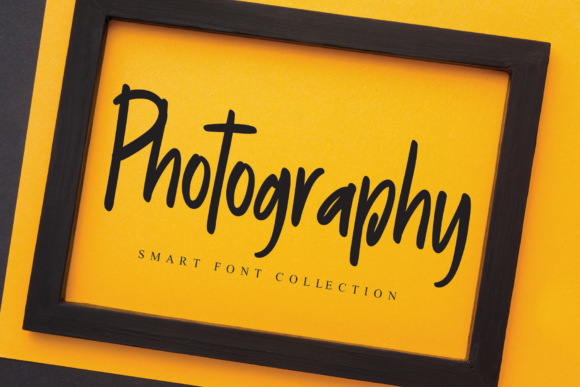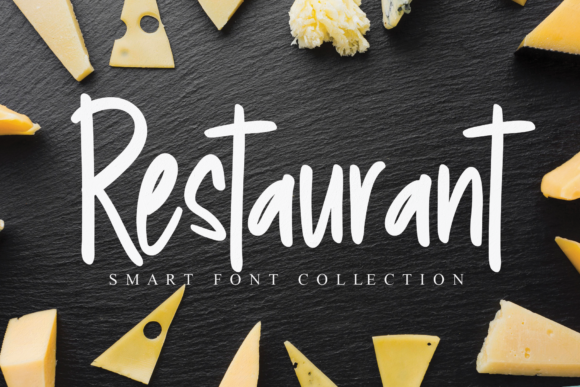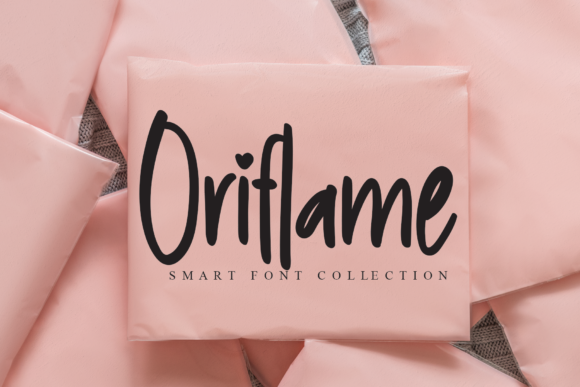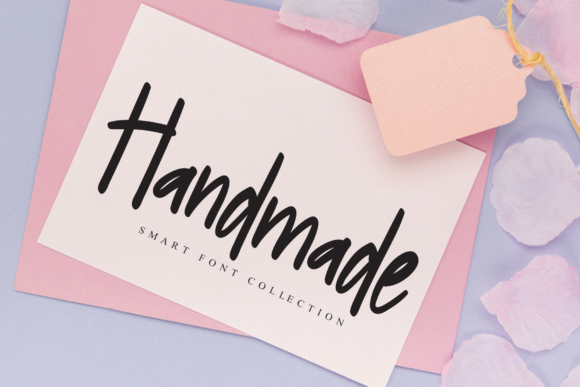
Start Your Day with a Delicious Font: Breakfast Font
As you sip your morning coffee and scroll through your design feeds, do you ever find yourself searching for the perfect font to kick-start your creative projects? I know I do! There’s something about the right font that can make all the difference in setting the tone for a beautiful design. For me, it’s the sweet and delicate swashes of Breakfast Font that always get my creative juices flowing.
BREAKFAST FONT is a charming handwritten font that’s perfect for adding a touch of elegance to your crafty projects. Whether you’re designing letterheads, titles, or stationery, this font is sure to impress. Its original look is both versatile and sophisticated, making it a valuable addition to any designer’s toolkit.
- Unique Characteristics: Breakfast Font features a clean and modern design, with a distinctive rounded edge and a subtle texture, giving it a unique and eye-catching appearance.
Breakfast Font is a playful, hand-drawn sans-serif font designed for titles and headings. It’s perfect for creating a fun, casual atmosphere in your designs. ✨ The rounded edges and varied letterforms add a touch of whimsy, making it ideal for branding, posters, and social media graphics.
- Its versatility in conveying a sense of playfulness and approachability
- The wide range of font sizes and styles available, making it easy to customize for different design applications
- The unique, hand-drawn aesthetic that sets it apart from more generic sans-serif fonts
- It may not be suitable for formal or professional designs, as it can come across as too casual or immature
- The font may not be as legible at smaller sizes, making it less ideal for body text or large blocks of text
Overall, Breakfast Font is a great choice for designers looking to add some personality and flair to their designs. While it may not be suitable for every project, it’s a versatile and engaging font that can help create a lasting impression. ✨
The Breakfast Font is perfect for:
- Culinary-themed designs and menus
- Food blogs and recipes
- Restaurant and cafe branding
For the best results, use the Breakfast Font in bold or italic styles to add emphasis and visual interest to your designs. You can also pair it with other fonts to create a unique and eye-catching combination.